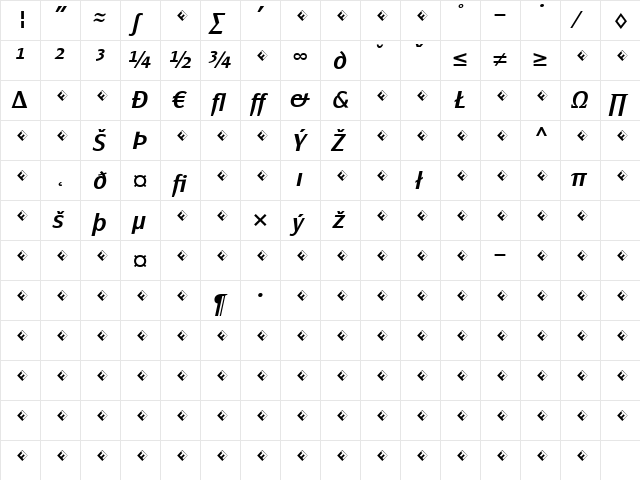
PageSans-DemiBoldItalicExp Regular
| Foundry | Albert Boton, published by FontShop International for the FontFont Library |
| Designer | Albert Boton |
Design Context for PageSans-DemiBoldItalicExp Typeface
PageSans-DemiBoldItalicExp is a composed and adaptable typeface that performs quietly and consistently across a wide range of design contexts. The dynamic lean of this cut emphasises speed and emphasis in any layout. Its bold stroke weight gives it real presence on the page.